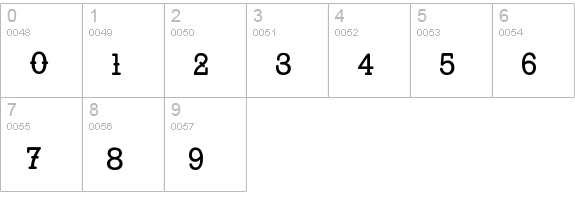
Retro Pop Regular Font Details
Retro Pop Regular is the standard, neutral variant in the Retro typeface family \xE2\x80\x94 well suited to general body text, paragraphs, and standard typographic work.
Retro Pop Regular font is a charming and playful typeface that brings a touch of nostalgia to any design project. With its bold lines and funky curves, this font is perfect for creating eye-catching headlines, posters, and branding materials. The Retro Pop Regular font is versatile and can be used for both personal and commercial projects. What makes this font even more appealing is that it is available for free download at FontsMarket.com. Whether you're a seasoned designer looking to add a retro flair to your work or someone just starting out in the world of design, Retro Pop Regular font is a great choice. Download it today and let your creativity shine with this fun and vibrant typeface.